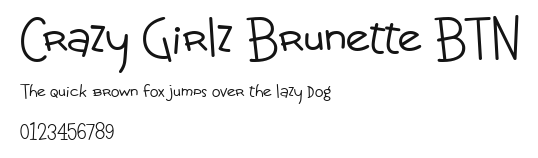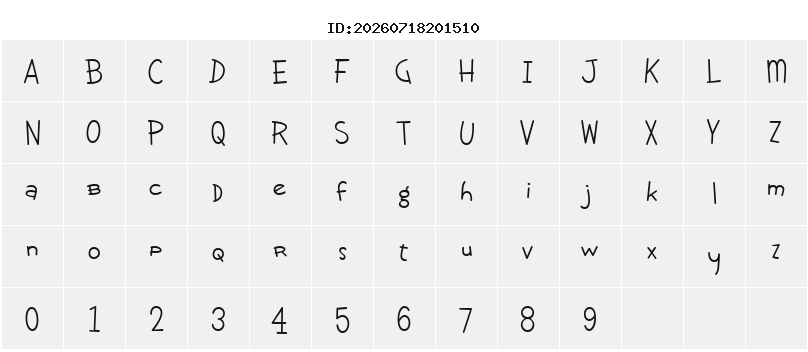
• Font Name: Crazy Girlz Brunette BTN
About Crazy Girlz Brunette BTN.ttf
Crazy Girlz Brunette BTN.ttf is a modern, elegant sans-serif font designed for ultimate readability and visual harmony. Perfect for branding, headlines, web design, and print materials.